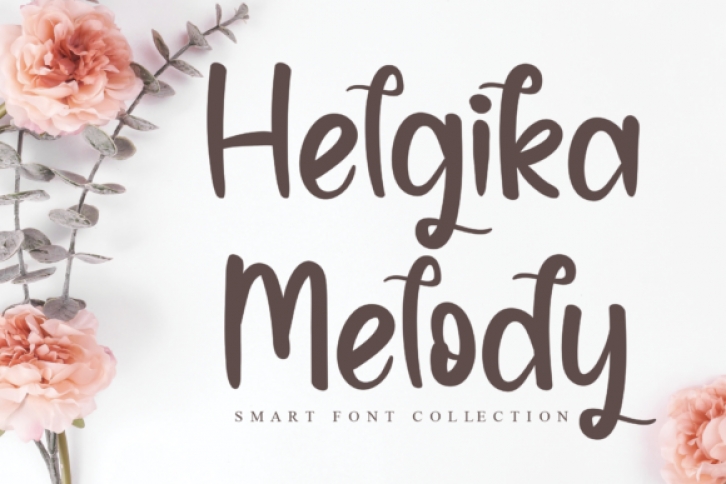
Helgika Melody is a sweet and cursive paint brushed handwritten font. This gentle font will look gorgeous on a variety of design ideas. It will add a joyful and romantic touch to each of your projects!